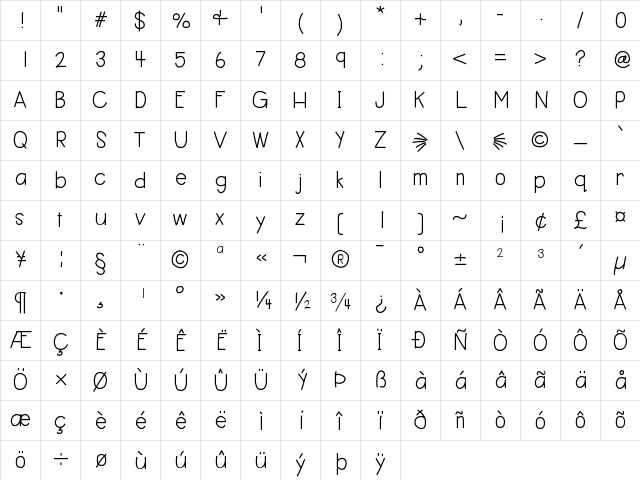
Complete HelloBestDay Medium glyph index. Displaying only characters natively supported by HelloBestDay Medium font.
HelloBestDay is a composed and adaptable typeface that performs quietly and consistently across a wide range of design contexts.